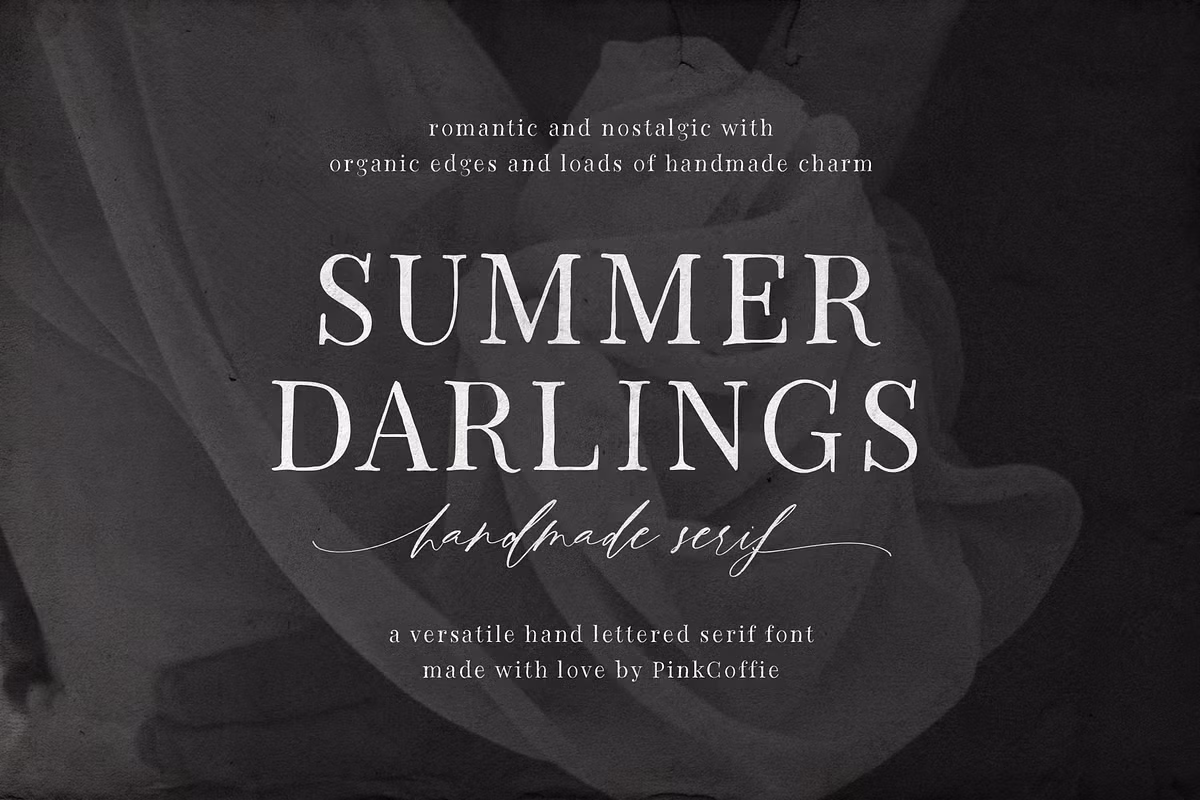
Summer Darlings | Handlettered Serif Font Free Download is a delightful, hand-lettered serif typeface that combines a charming, casual feel with the elegance of a serif font. With its unique, flowing strokes and organic shapes, this font is perfect for creating designs that are both friendly and sophisticated, such as invitations, branding, logos, posters, and more.
The Summer Darlings font adds a personal, handcrafted touch to your typography, making it perfect for creative projects that need an approachable yet stylish aesthetic. Whether you're designing for a boutique, event, or personal brand, this font brings warmth and beauty to your work.